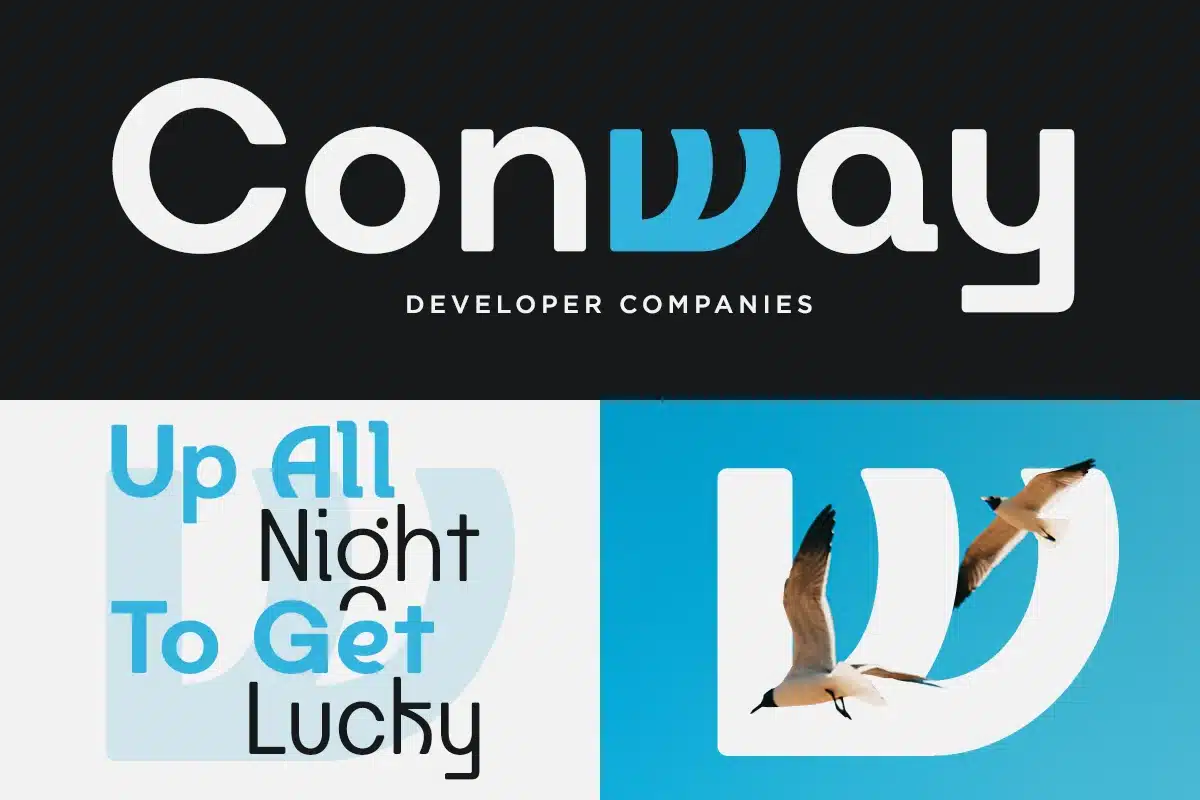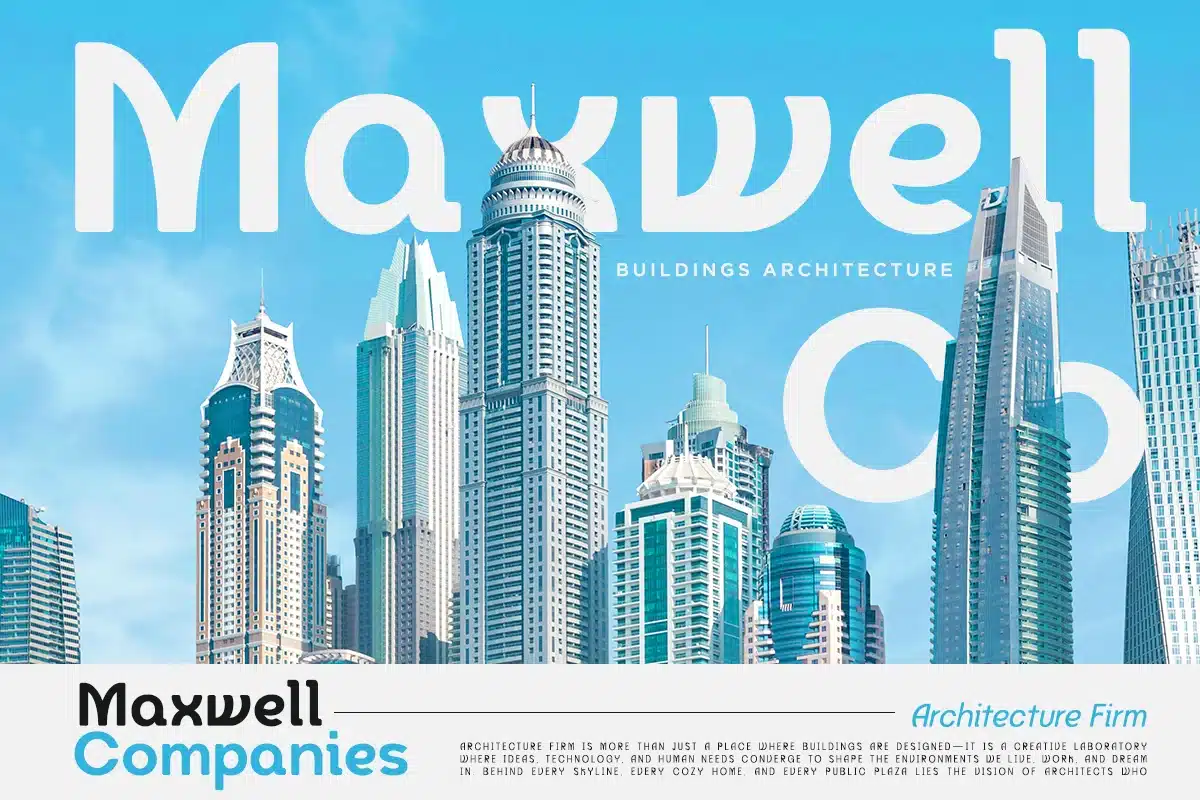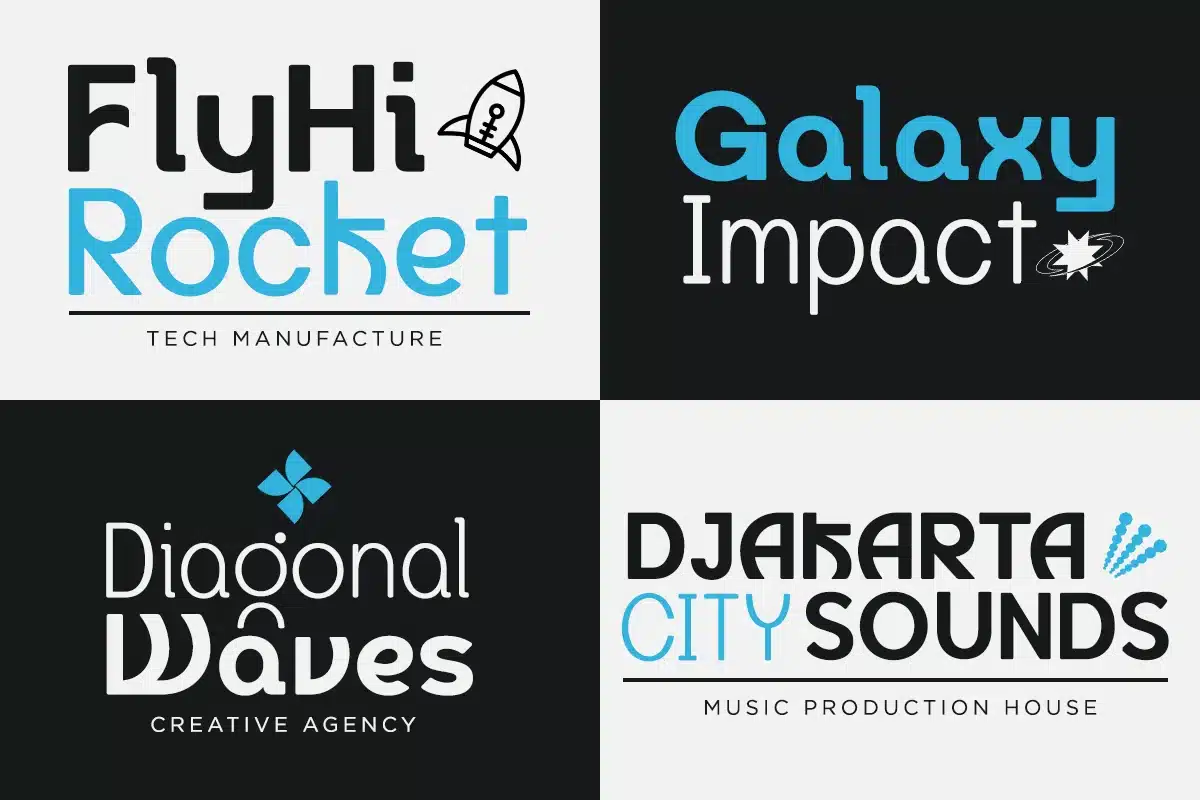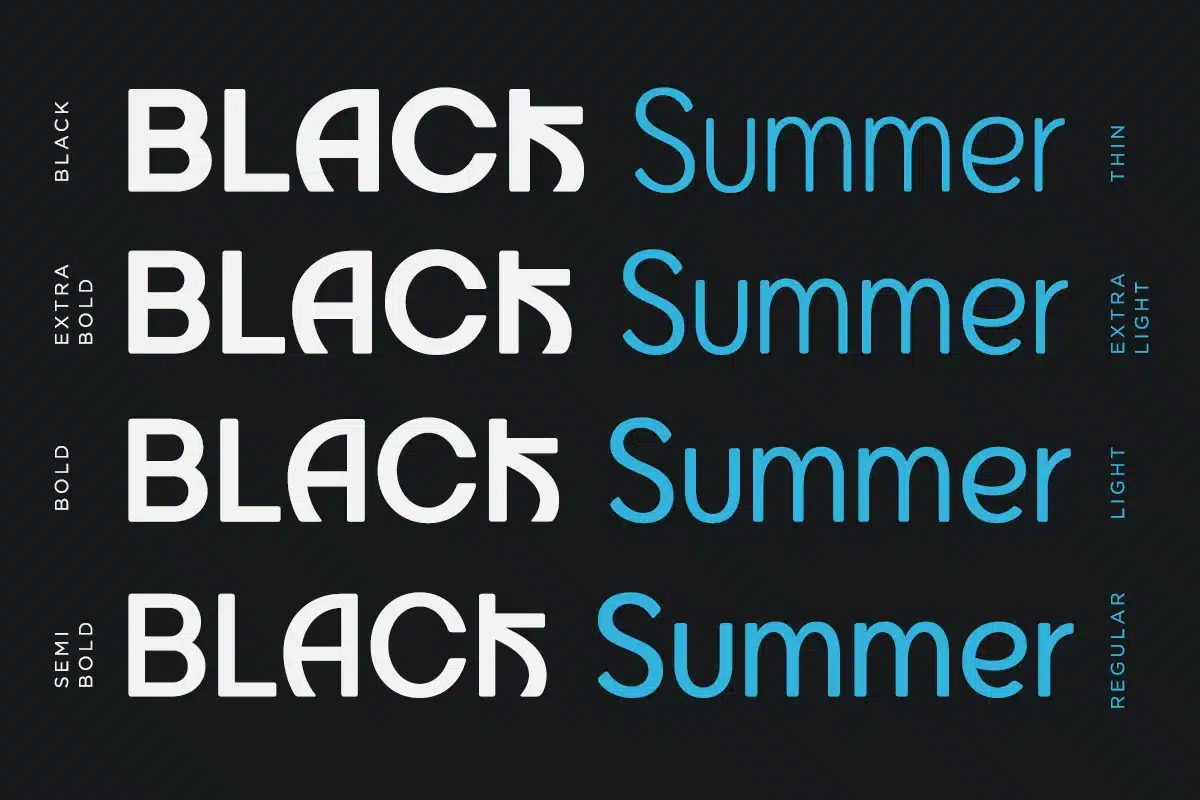
Axgensans – Modern Variable Sans Font
Axgensans is a modern variable sans font crafted with precision and flexibility. Designed for creative professionals, this typeface adapts beautifully across branding, digital interfaces, and editorial layouts. Its geometric construction and smooth rhythm make it perfect for modern identities, websites, and professional typography projects. Perfect for brand identity, web design, editorial, digital branding, UI/UX, and modern corporate logos.
Font Features:
- 9 Variable weights (Thin to Black)
- Regular & Italic styles
- Clean geometric shapes